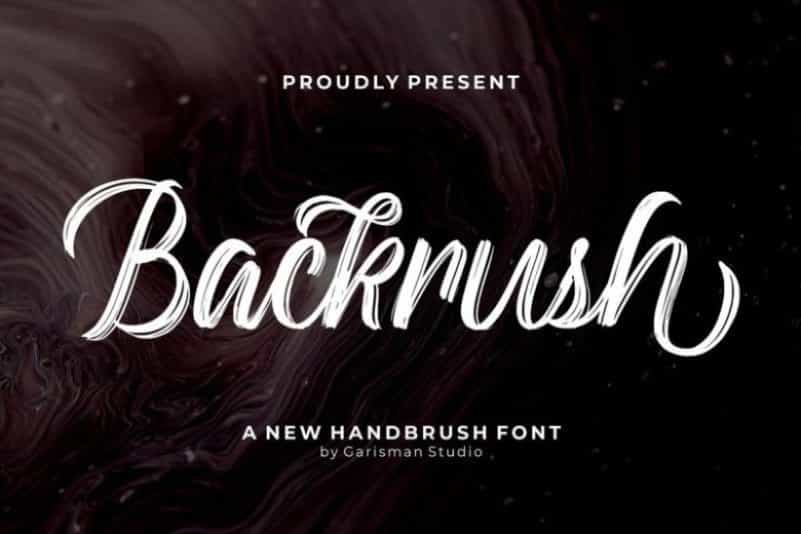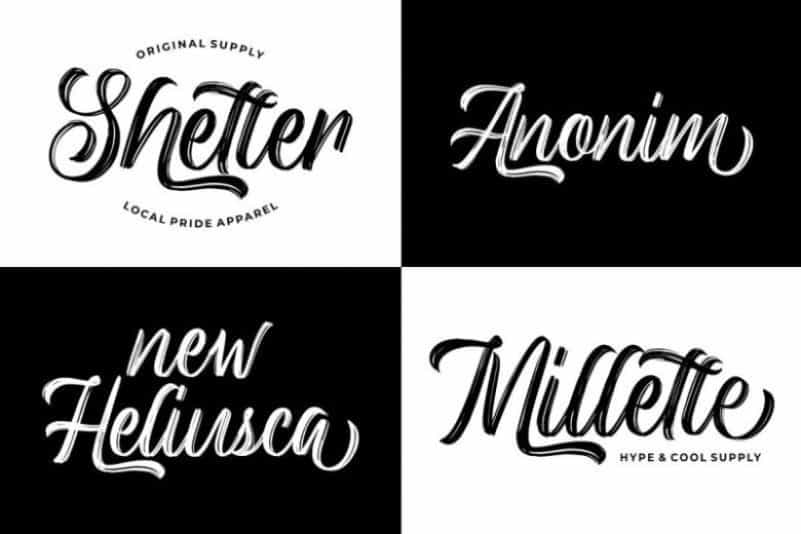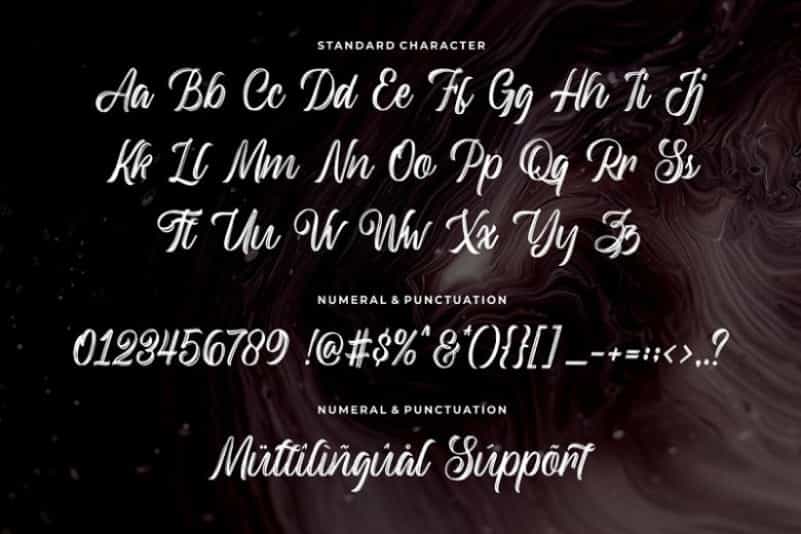
Discover Backrush Handbrush Script Font, part of the Brush Script collection—a versatile and unique font perfect for adding a personal touch to your projects. Download it for free and enjoy crafting designs with style, from invitations to social media posts. This font is available exclusively for personal use, giving you the freedom to create without limits. Unlock your creativity with Backrush Handbrush Script Font today!
The Backrush Font is a beautiful blend of graceful curves, with a touch of urban asperity you calculating ahead stylish script hand brush rustic but eye-catching in its own way if indeed even creates an attention-grabbing feel without looking out open your face When it comes to personal branding projects, handwritten quotes or home ware designs, product packaging and the like,